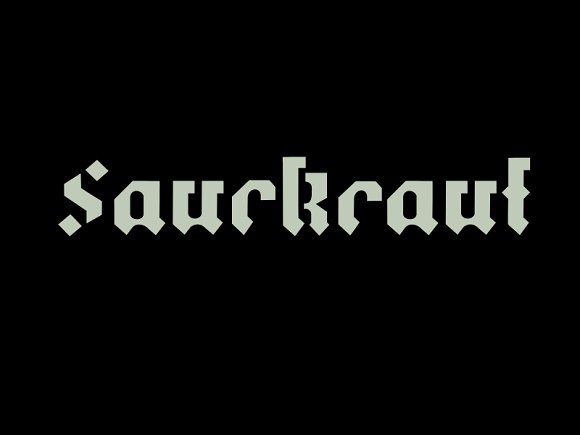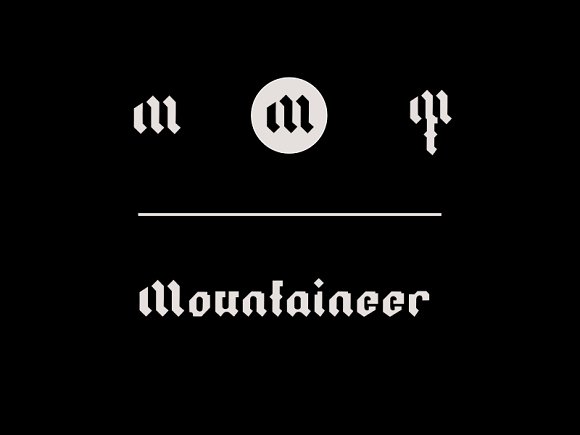
Introduction to Himilayan Font Font
Fonts play a crucial role in design, and the Himilayan Font font is a typeface that brings both character and versatility to any project. Whether you’re working on a branding project, a website, or a print design, the Himilayan Font font offers a unique style that can elevate your work.
I set out to create a black letter that is unique, yet feels like something nostalgic that you’ve seen before.
Sketching out the font, I used brick laying as an inspiration and based the design off of the concept Each letter has a block feel that I wanted to capture.
The Himilayan Font font is more than just a typeface – it’s a design tool that helps you communicate your message with style and clarity. Its unique character set and versatile design make it suitable for a wide range of applications, from elegant invitations to bold headlines.
With its carefully crafted letterforms and balanced proportions, the Himilayan Font font ensures readability and visual appeal across all mediums.
What makes Himilayan Font font special?
The Himilayan Font font stands out with its unique design, exceptional readability, and versatility across various design applications.